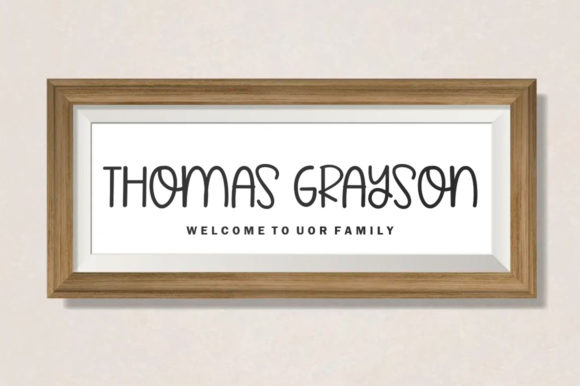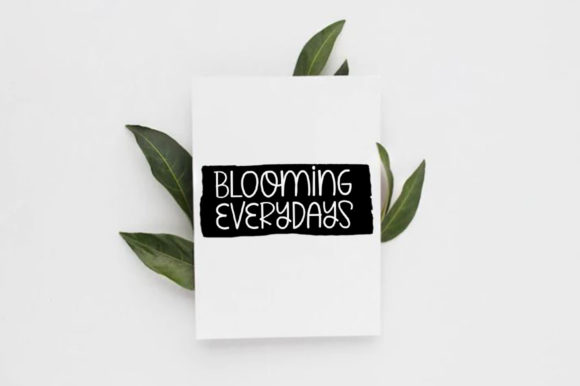
Joyful Magnolia Duo Font
db-ku.com - Script & Handwritten -- Joyful Magnolia is a handwritten font duo. One of the fonts is a casual and playful handwritten font, while the other one is a signature-style script.